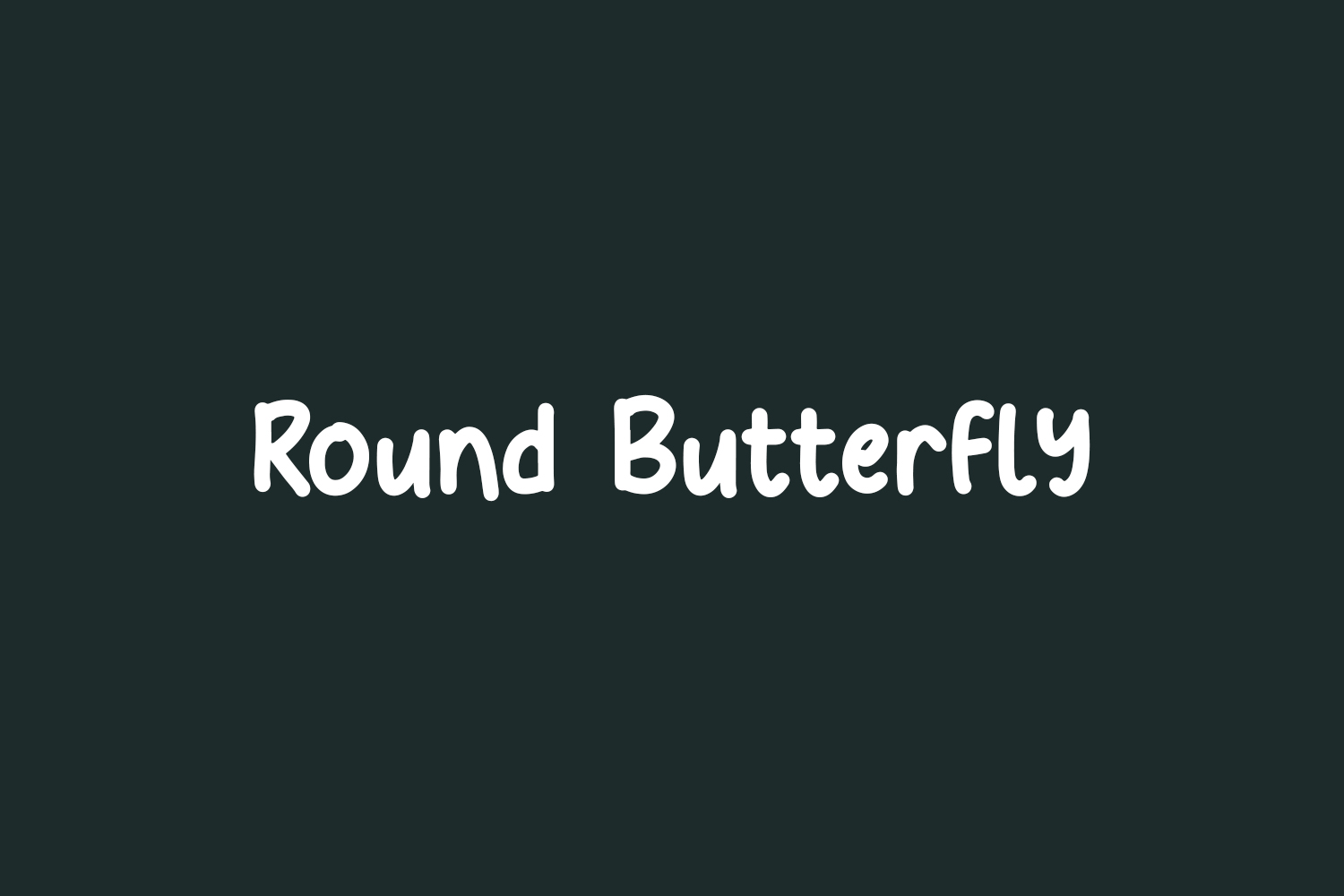
Introducing Round Butterfly Free Font is a delightful and versatile font that embodies a playful spirit. This font’s flexibility allows it to effortlessly enhance your shirt design projects, cards, or even serve as a representation of your very own natural handwriting! Unleash your creativity and infuse a touch of whimsy into your works with this charming Round Butterfly font. Round Butterfly Free Font is free for personal use only. Please purchase the full version for commercial use.